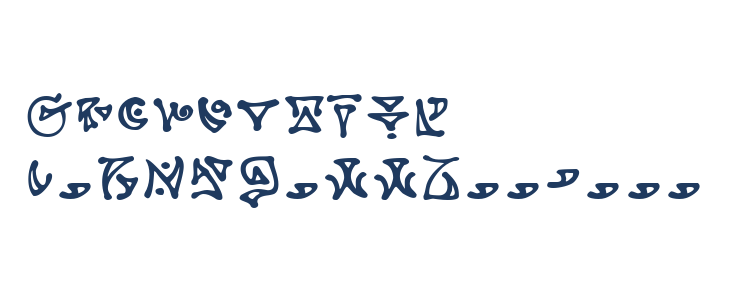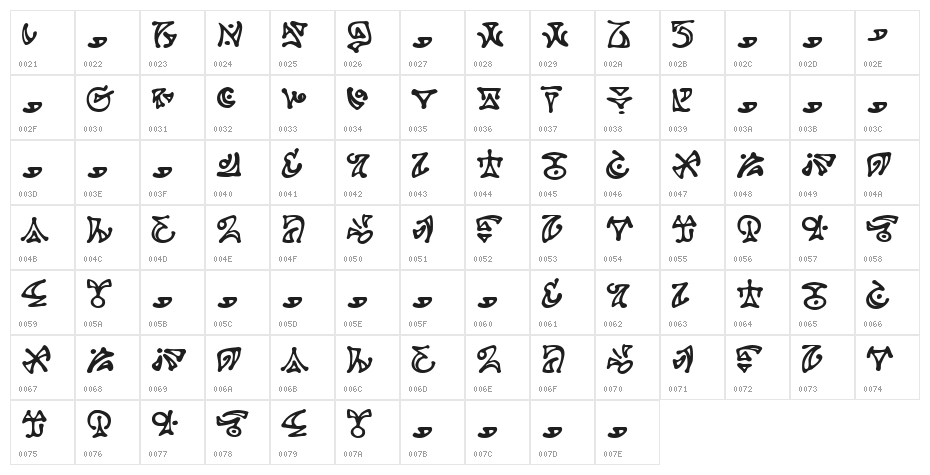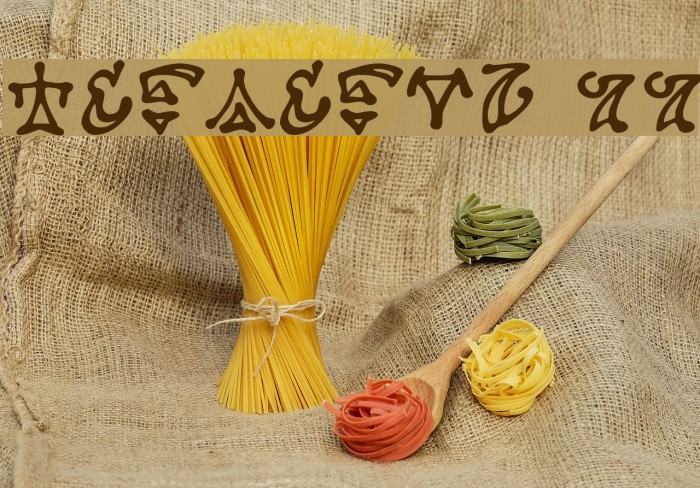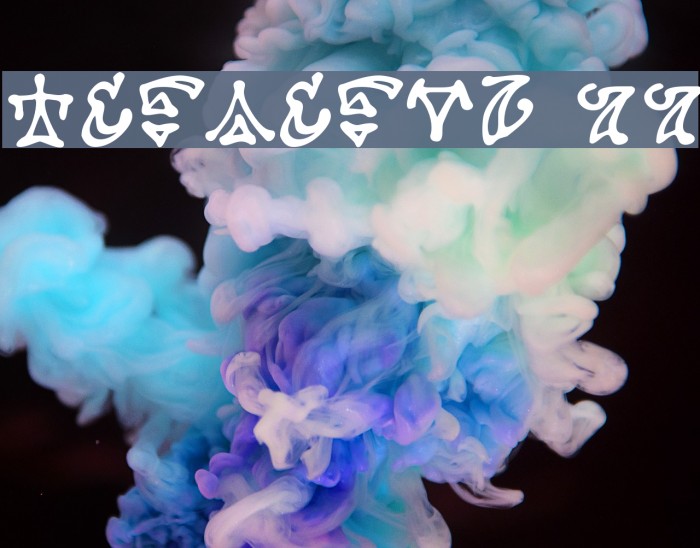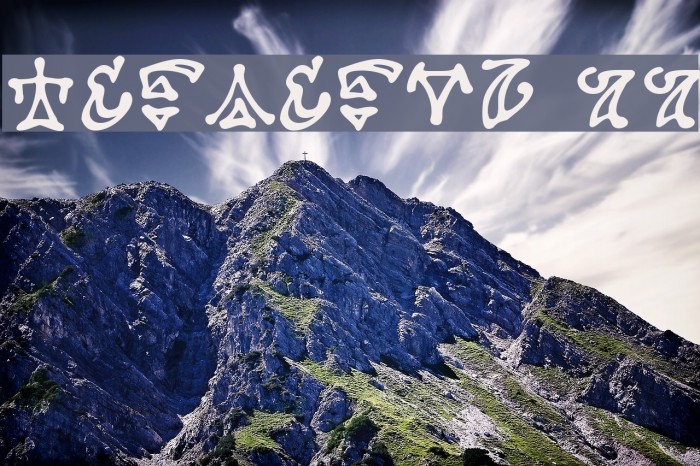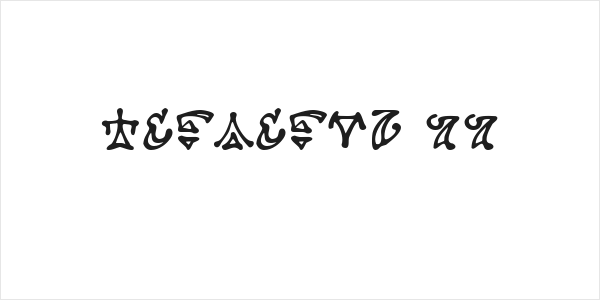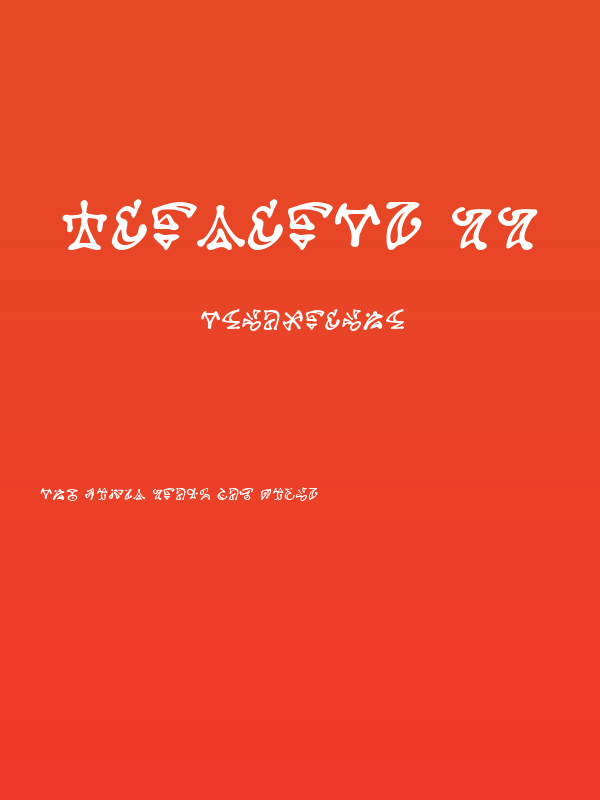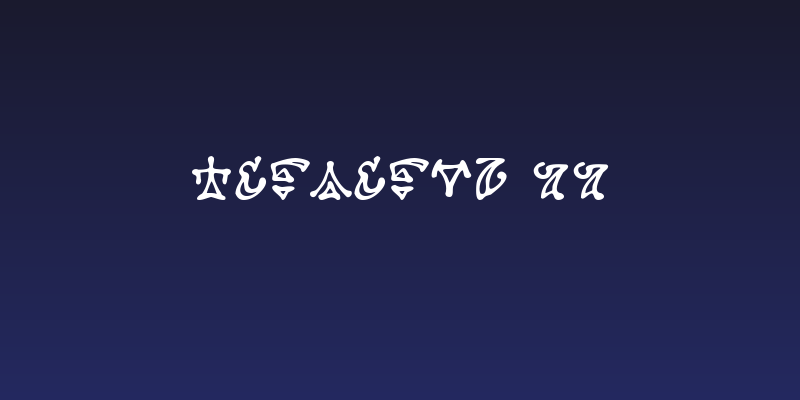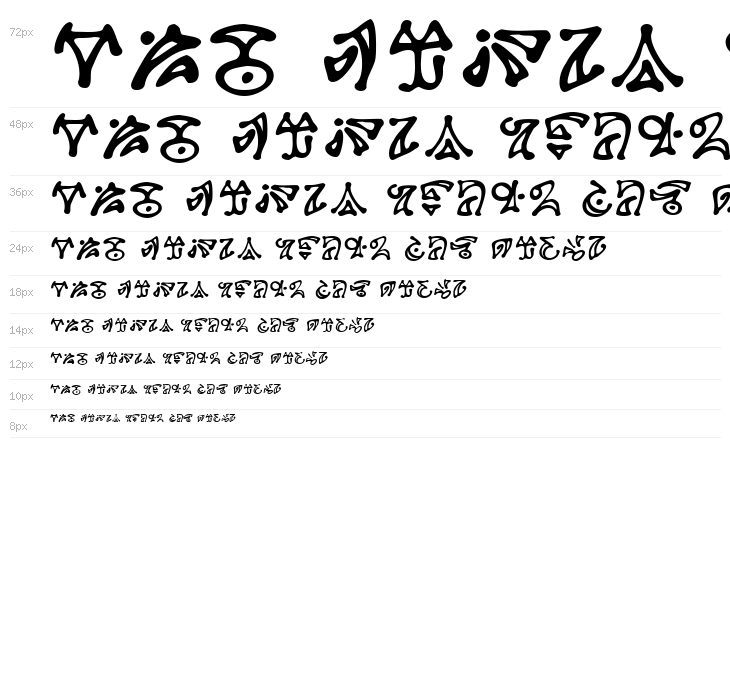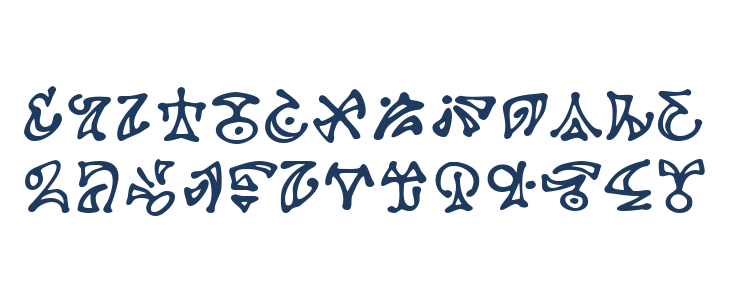
DarkArts BB Font
DarkArts BB Description
This font features a highly decorative and mystical style, reminiscent of ancient runes or magical scripts. Each character is uniquely crafted with intricate curves and sharp angles, giving it an enigmatic and mysterious appearance. The bold strokes and elaborate design elements make it stand out, creating a sense of arcane allure. This font is perfect for projects that require a touch of fantasy or a connection to the mystical arts. Its distinctiveness makes it ideal for thematic designs, where the goal is to evoke a sense of wonder and mystery.
Overall StyleMystical, Decorative
Use CaseLogos, Headlines, Themed Designs
Proposed ProjectsFantasy book covers, mystical event invitations, themed posters, game design elements.